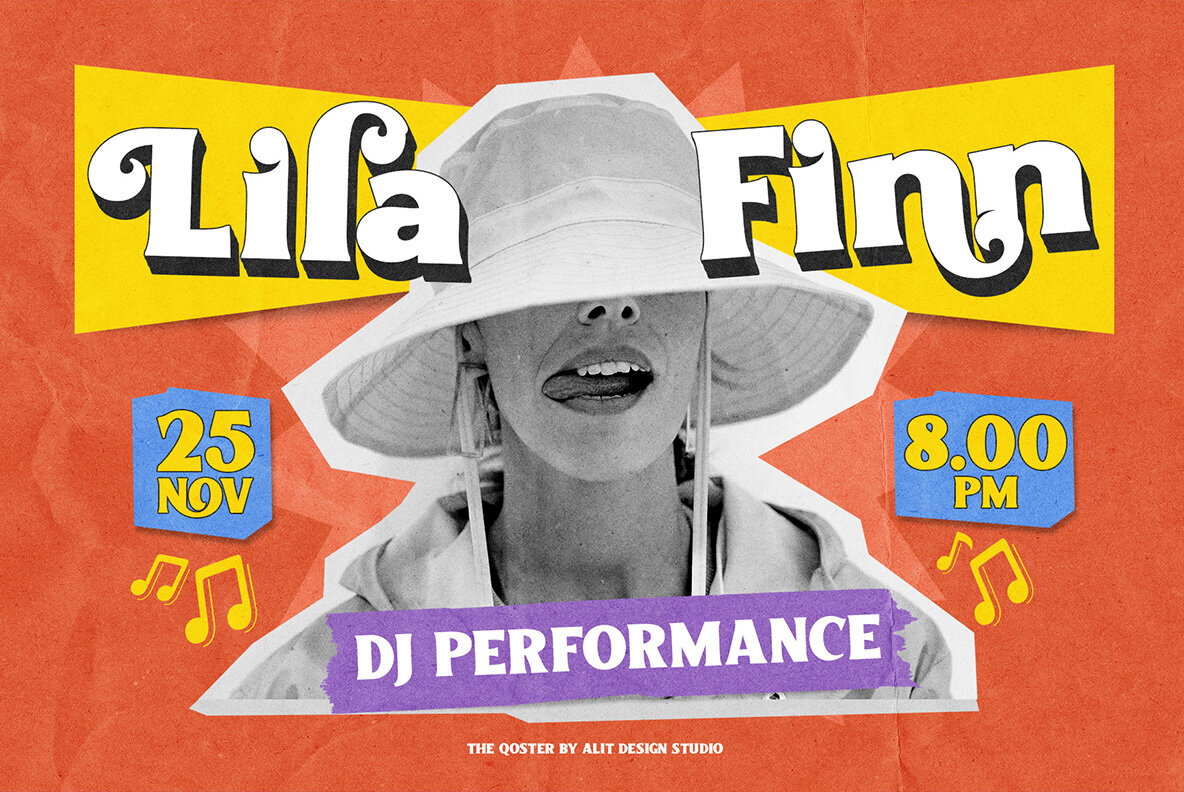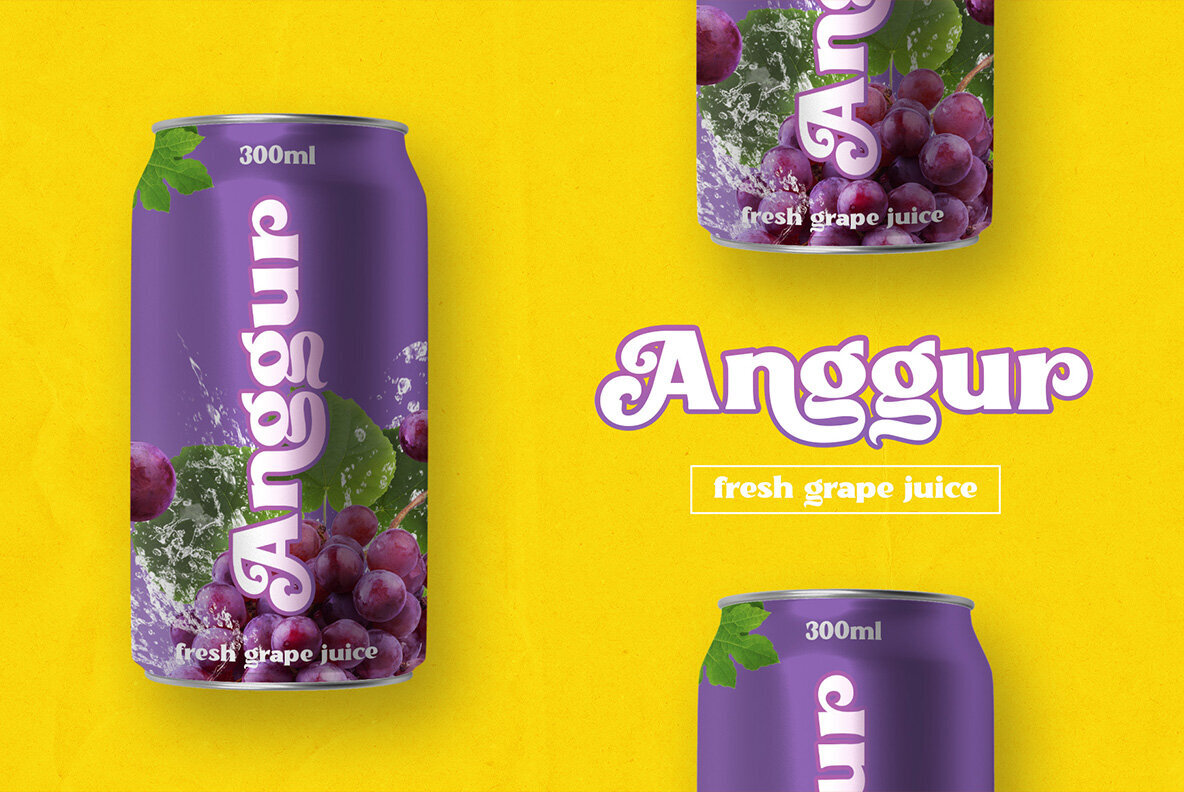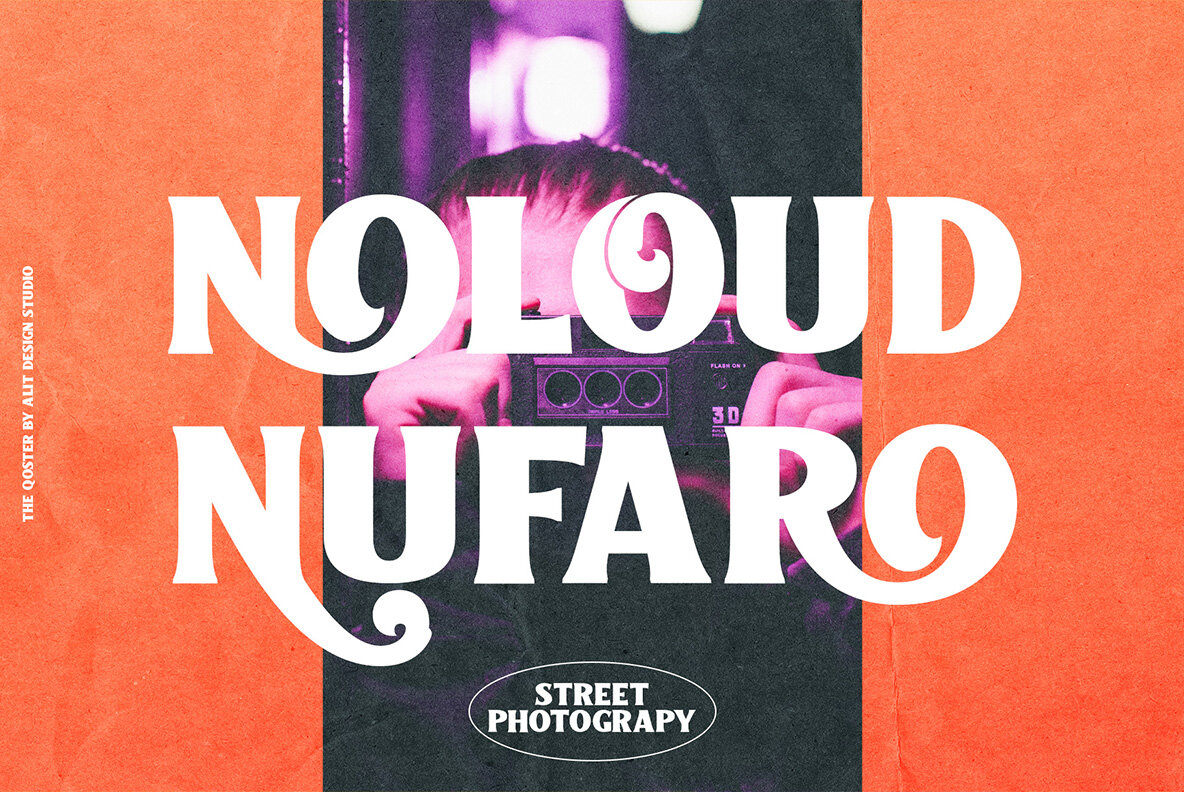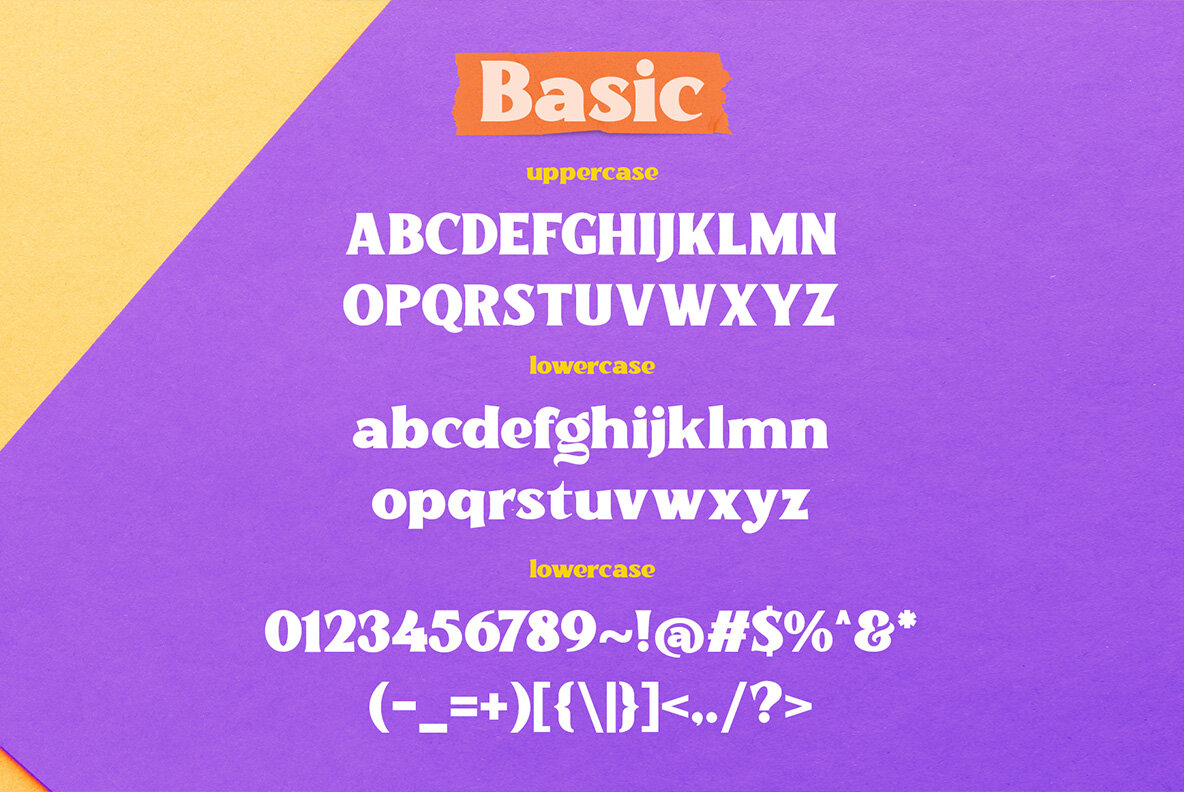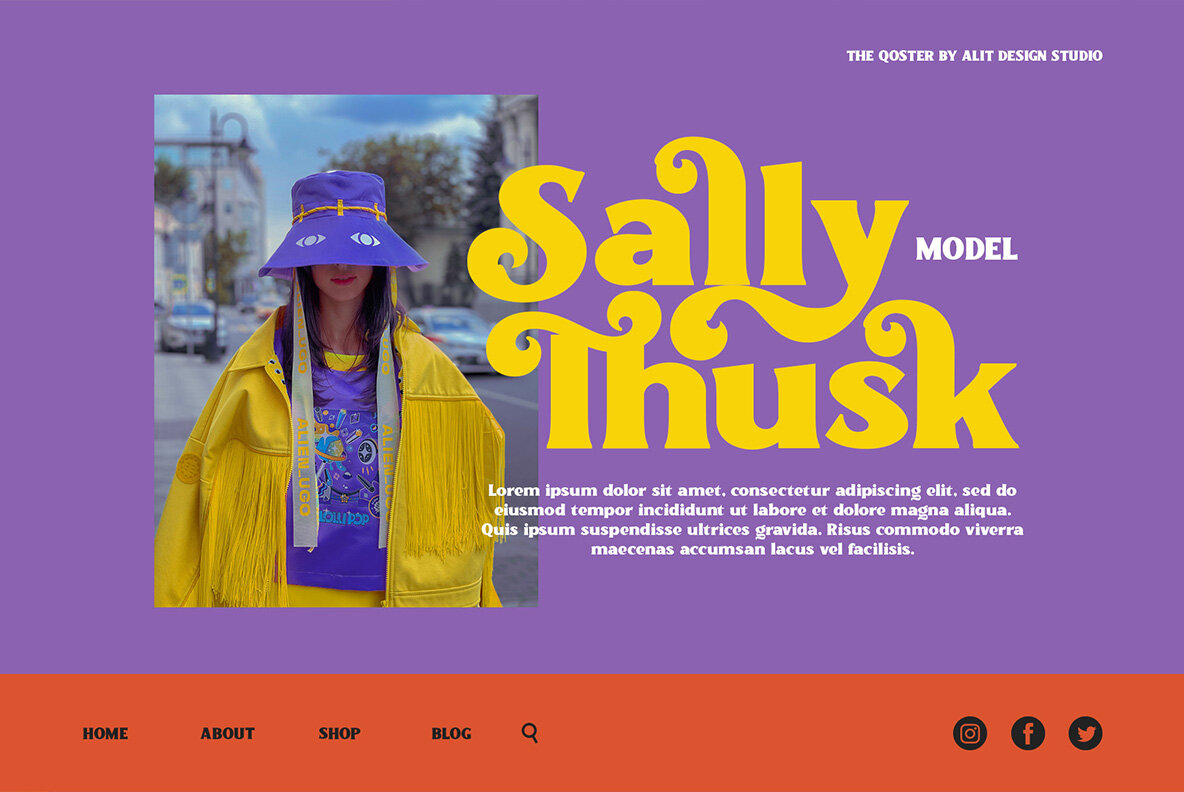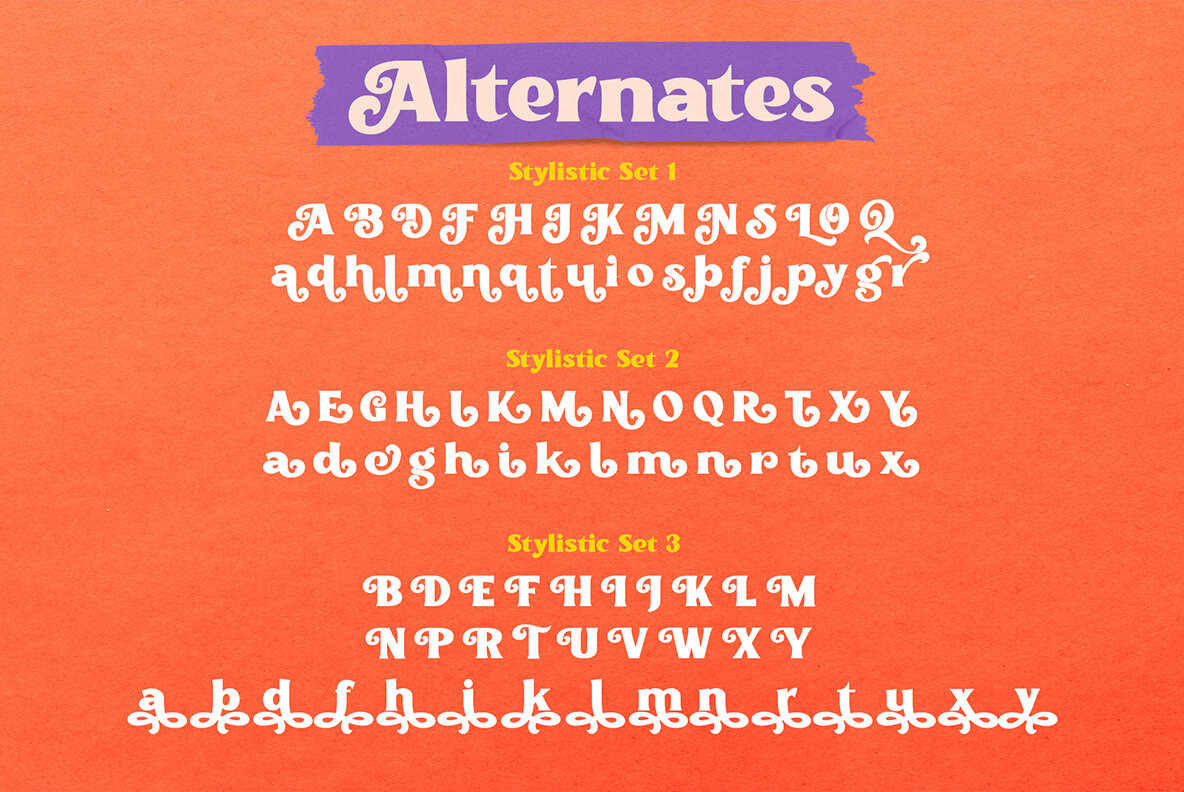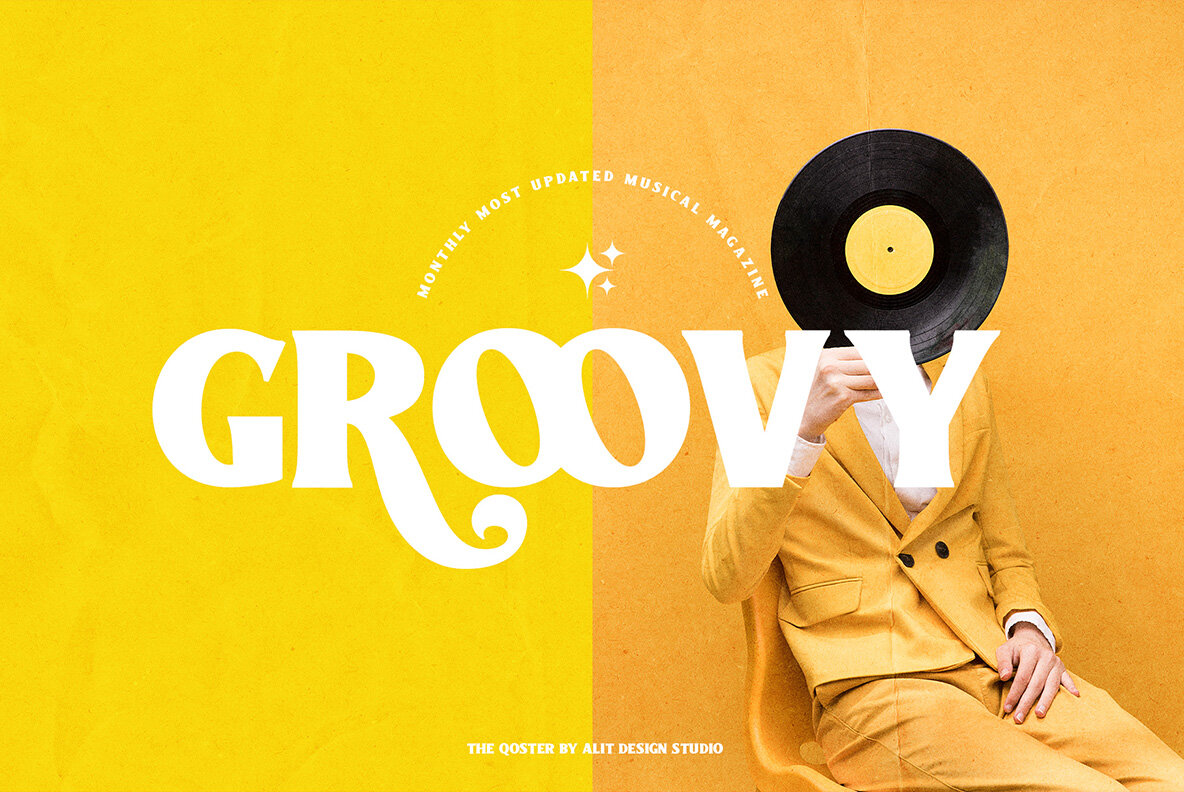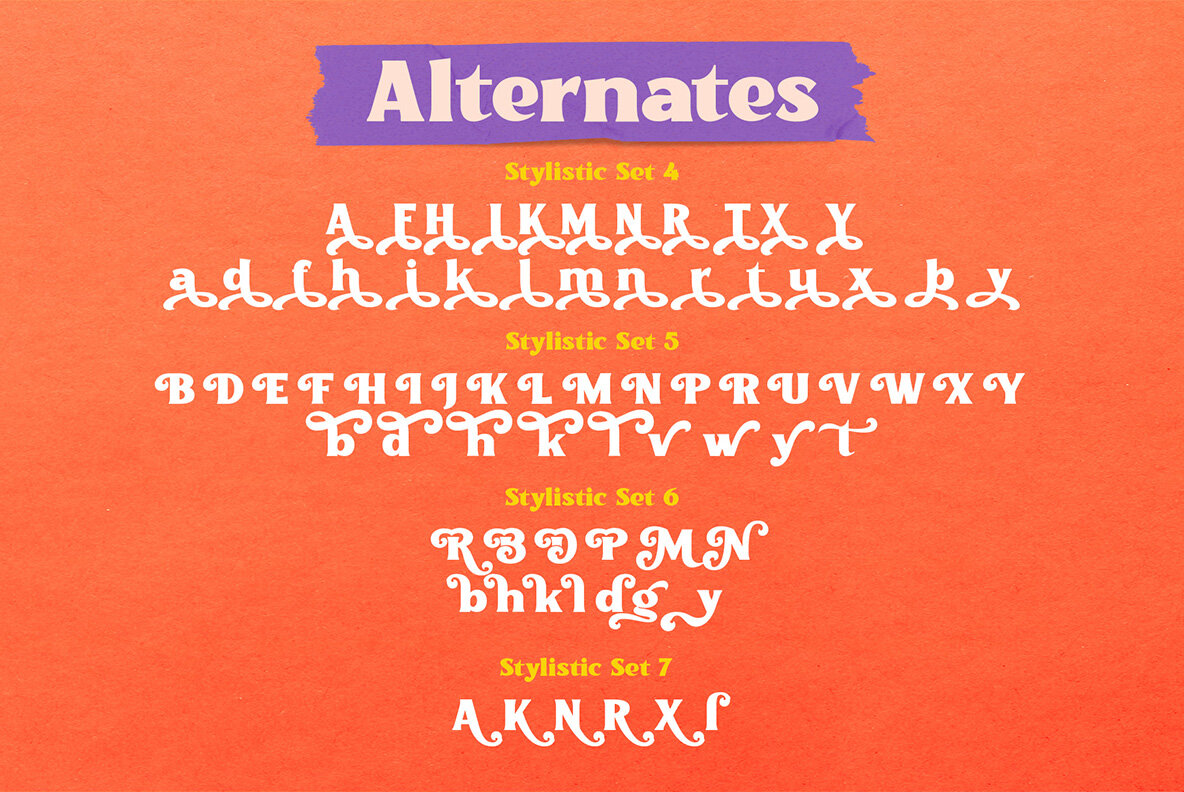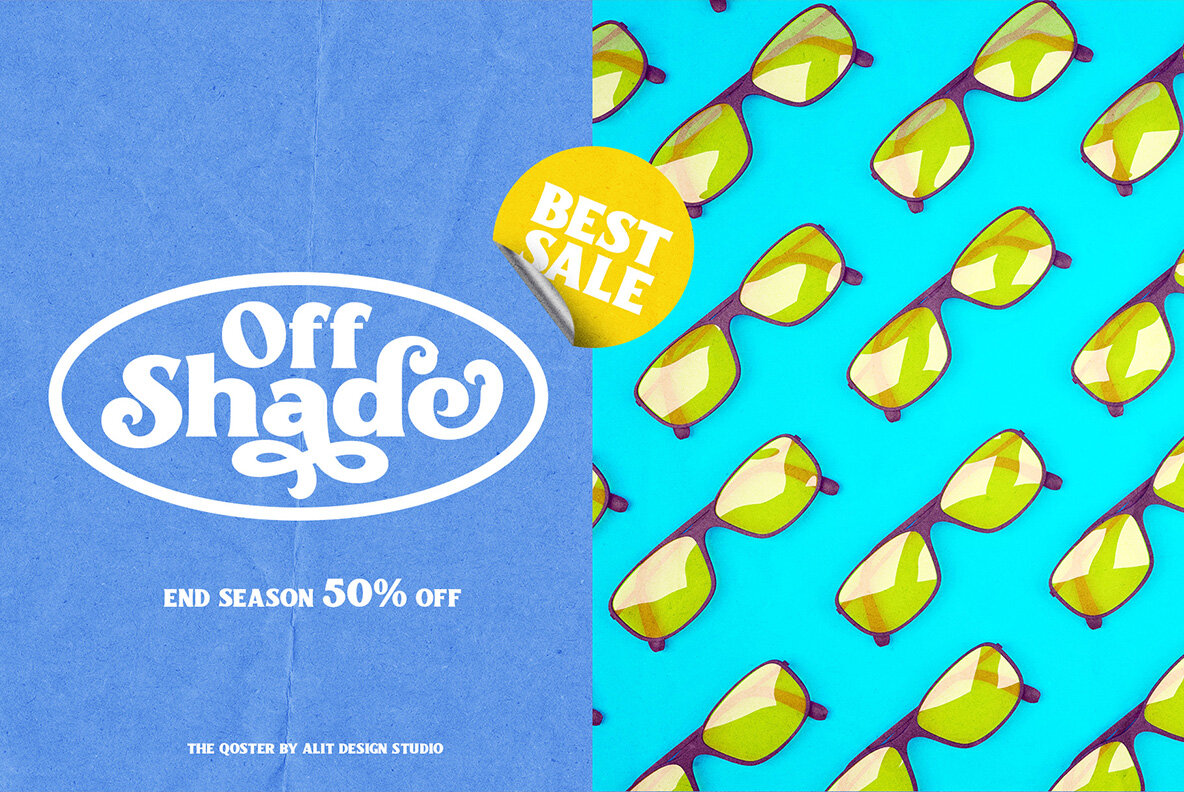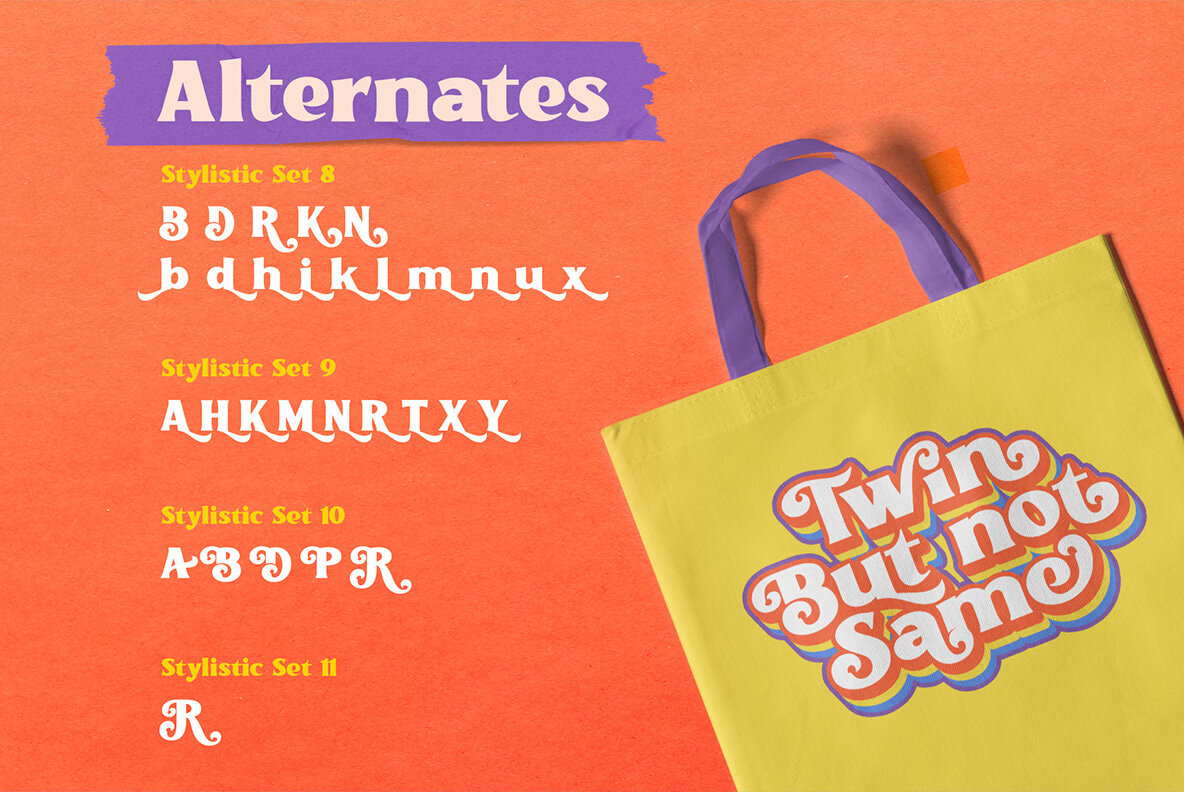
The Qostter Font
The qoestter Regular
The Qostter Retro Serif font is inspired by stylish designs from the 80s to 90s. At that time the font style like "The Qotter" had a firm and trendy impression. The Qotter retro font has a wide selection of alternative characters and swashes that make it easy to create bold retro-style designs.
The Qostter Retro Serif font is very suitable for making designs with retro concepts, simple and playful designs, for example making magazine cover designs, music covers, YouTube thumbs, text headers, logotypes and so on with an elegant retort theme. Besides that this font is very easy to use both in design and non-design programs because everything changes and glyphs are supported by Unicode (PUA).
The Qostter Retro Serif font has a total of 758 glyphs including symbol, multilingual and alternative glyphs.